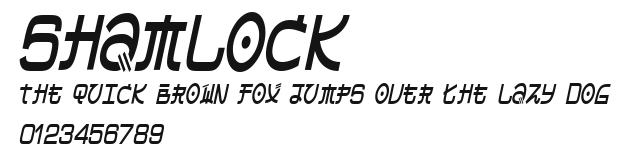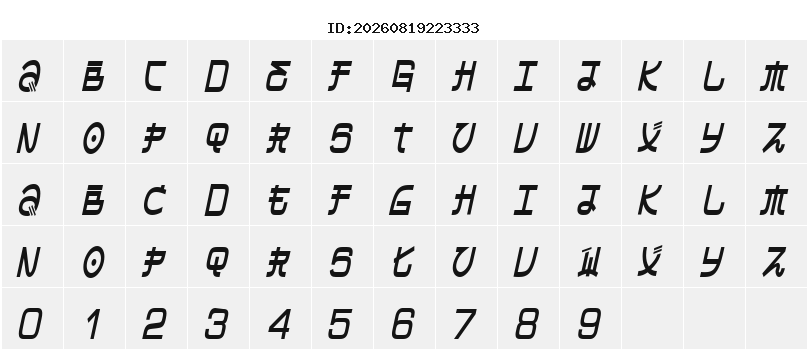
• Font Name: Shamlock
• Full Font Name: Shamlock Italic
• Designer: jeroen klaver
• Manufacturer: shamrock int.
About Shamlock.ttf
Shamlock.ttf is a modern, elegant sans-serif font designed for ultimate readability and visual harmony. Perfect for branding, headlines, web design, and print materials.